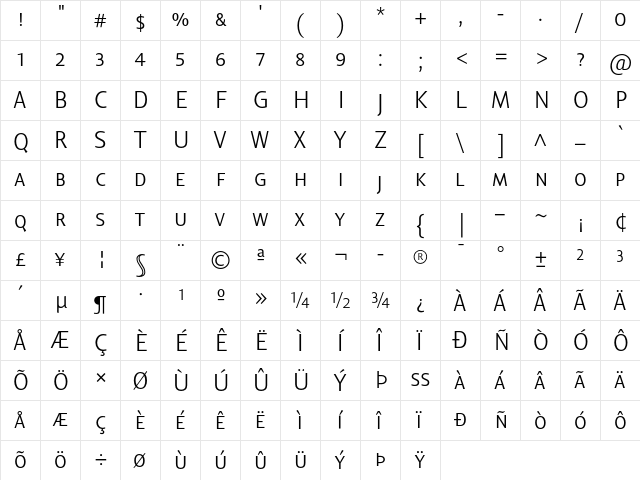
Lisboa Sans SC Light Regular
Design Context for Lisboa Sans SC Light Typeface
Lisboa Sans SC Light offers clean, dependable letterforms without strong stylistic allegiance, making it a practical choice for designers who need flexibility. Its slender proportions lend an understated elegance to any composition.
Pro Tip: Use Lisboa Sans SC Light in both headline and body roles to test its range before committing to a single application.